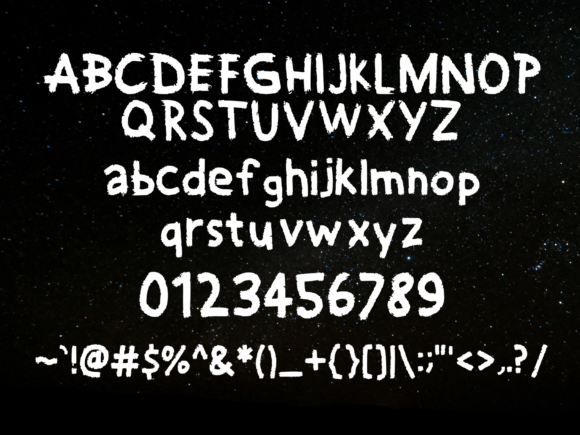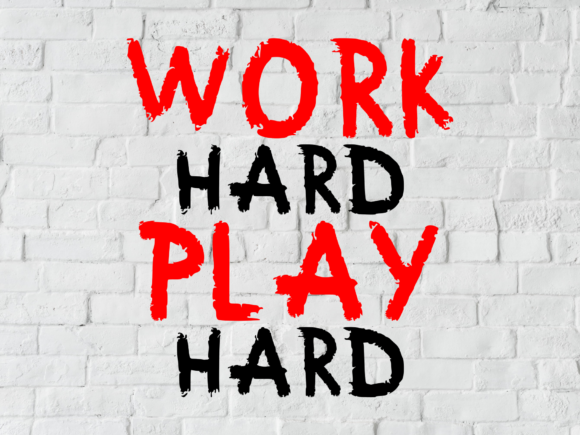
Introduction to Robek Font
Have you ever found yourself in a creative rut, searching for that one special element to take your design to the next level? I know I have, and it’s exactly why I’m so excited to introduce you to the Robek Font – a game-changing addition to any designer’s toolkit.
This grunge-style font is more than just a pretty face; it’s a powerful design resource that will add an edgy street-inspired touch to any creative project. With its unique look and feel, the Robek Font is the perfect way to make your designs stand out from the crowd.
Key Features of Robek Font
- High-quality design resource ideal for creative projects, offering a unique aesthetic.
- Transparent background, allowing for easy customization and integration into various designs.
- Robust and versatile font, suitable for a wide range of applications, from print to digital media.
- Resolution-independent, ensuring crisp and clear display on various screen sizes and resolutions.
- Comes in a single font size, designed to be scalable and adaptable to different creative projects.
Honest Review: Robek Font
I recently stumbled upon the Robek Font and I have to say, I’m quite impressed. This design resource offers a lot of potential for creative projects. One of the things that caught my eye was its high quality, making it perfect for both web and print designs. The transparent background is another feature that I appreciate, giving designers more flexibility when using it.
Here are some things that work well about the Robek Font: ✨ High-quality design, ✨ Transparent background, ✨ Free download option, and ✨ Versatile font that can be used in various creative projects.
- High-quality design suitable for web and print designs
- Transparent background for added flexibility
- Versatile font that can be used in various creative projects
However, there are some limitations to consider: ⚠️ Limited font sizes available, ⚠️ Not suitable for large-scale commercial use, and ⚠️ Limited customization options.
Overall, the Robek Font is a great addition to any designer’s toolkit. While it has its limitations, its high quality and transparent background make it a valuable resource for creative projects. If you’re looking for a reliable font for your next design project, the Robek Font is definitely worth considering.
Getting the Most Out of Robek Font
To get the most out of Robek Font, use it in combination with other design resources such as images, graphics, and colors. Experiment with different font sizes, colors, and styles to achieve a unique and creative look. You can also use the font in free download templates or design your own custom templates.
The Robek Font is suitable for a wide range of creative projects, including presentations, documents, infographics, and social media graphics. It is also a great design resource for designers, artists, and writers who need a high-quality font with a transparent background.